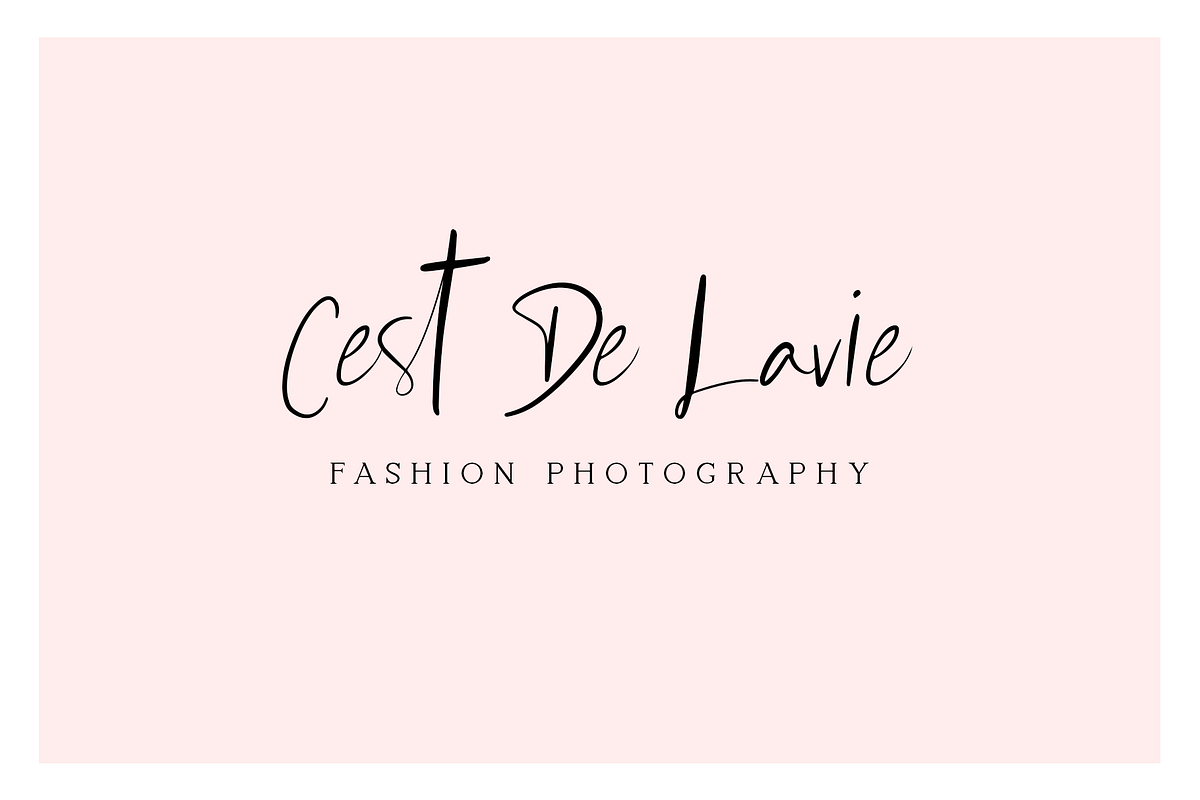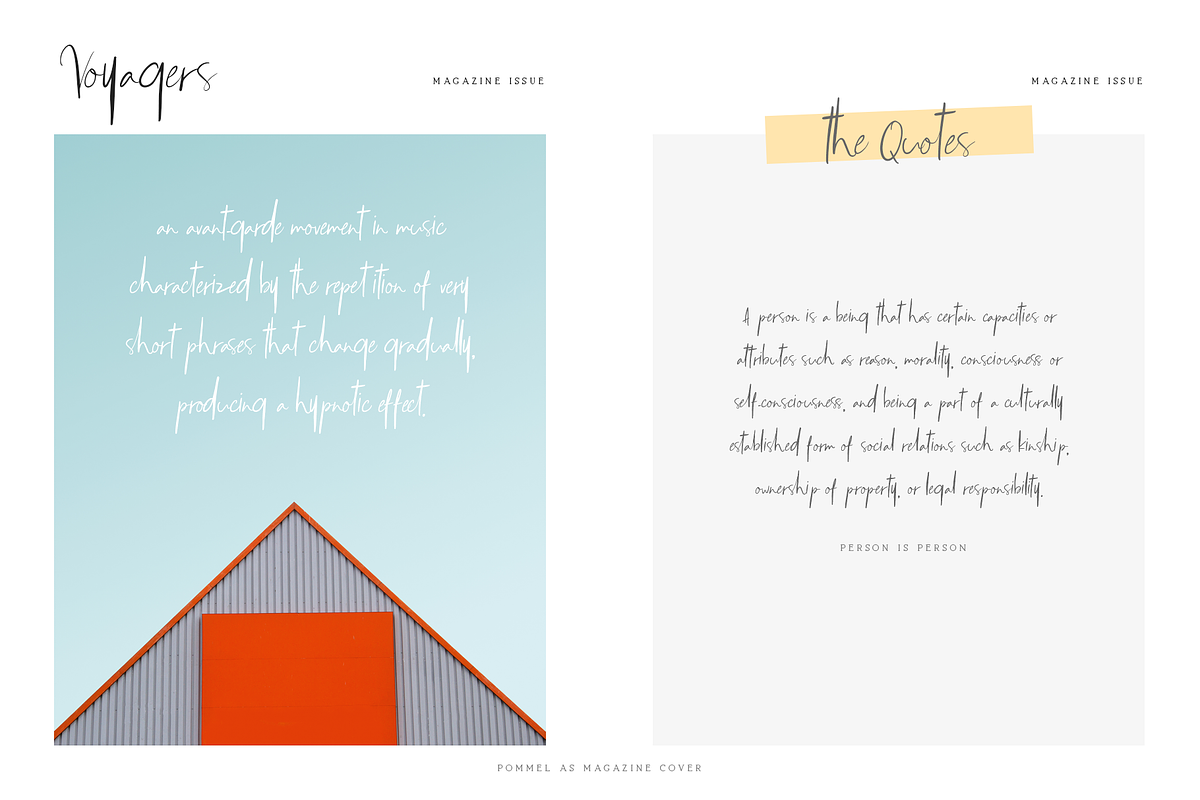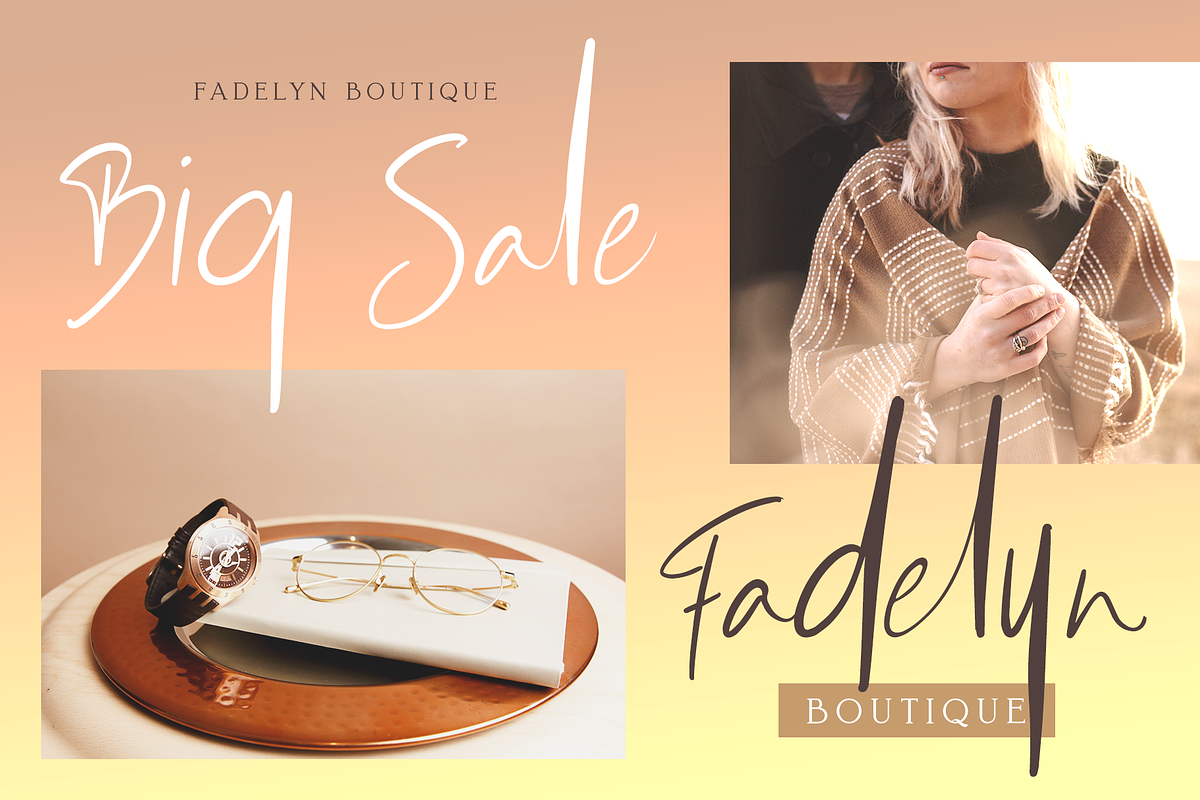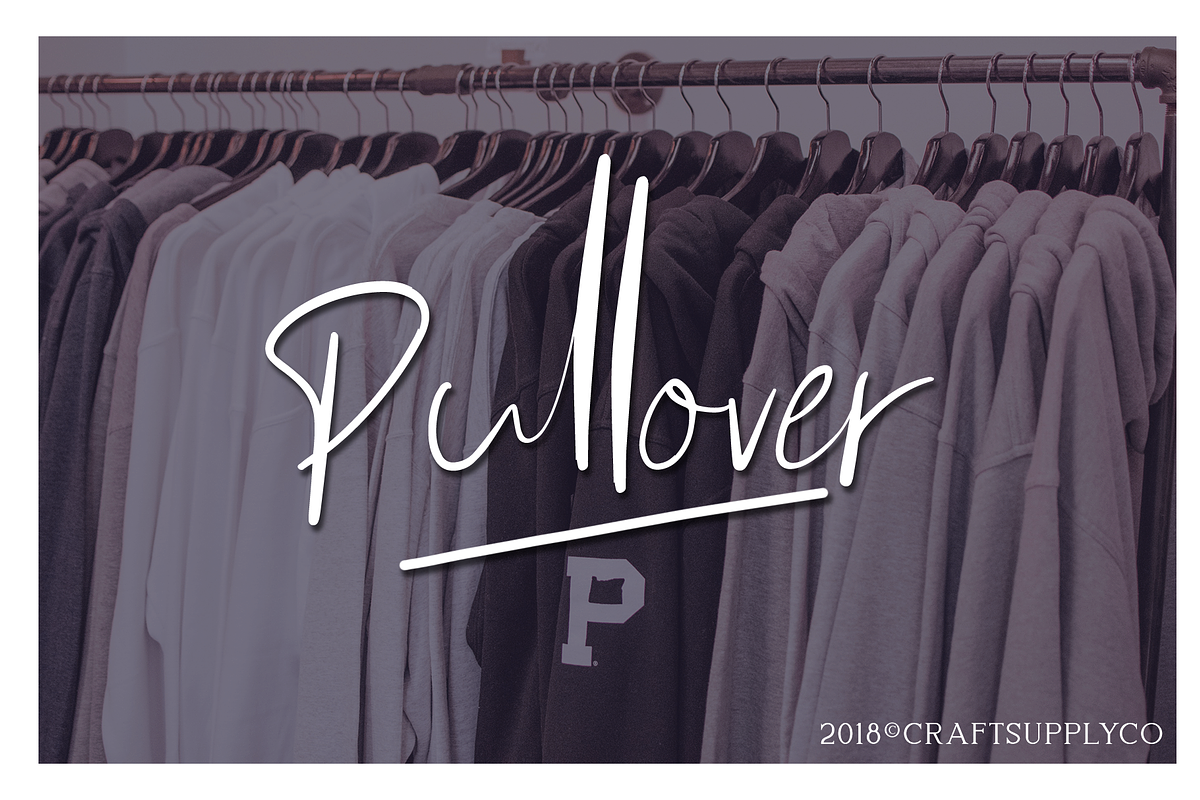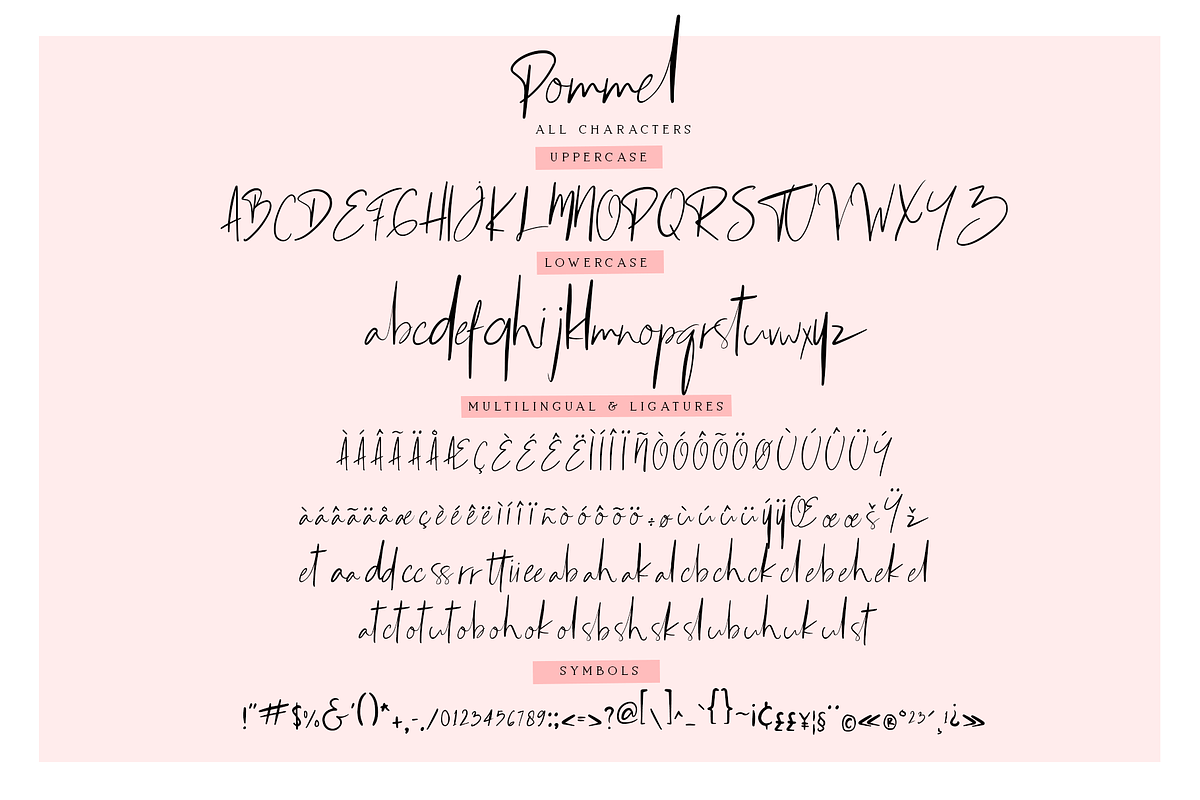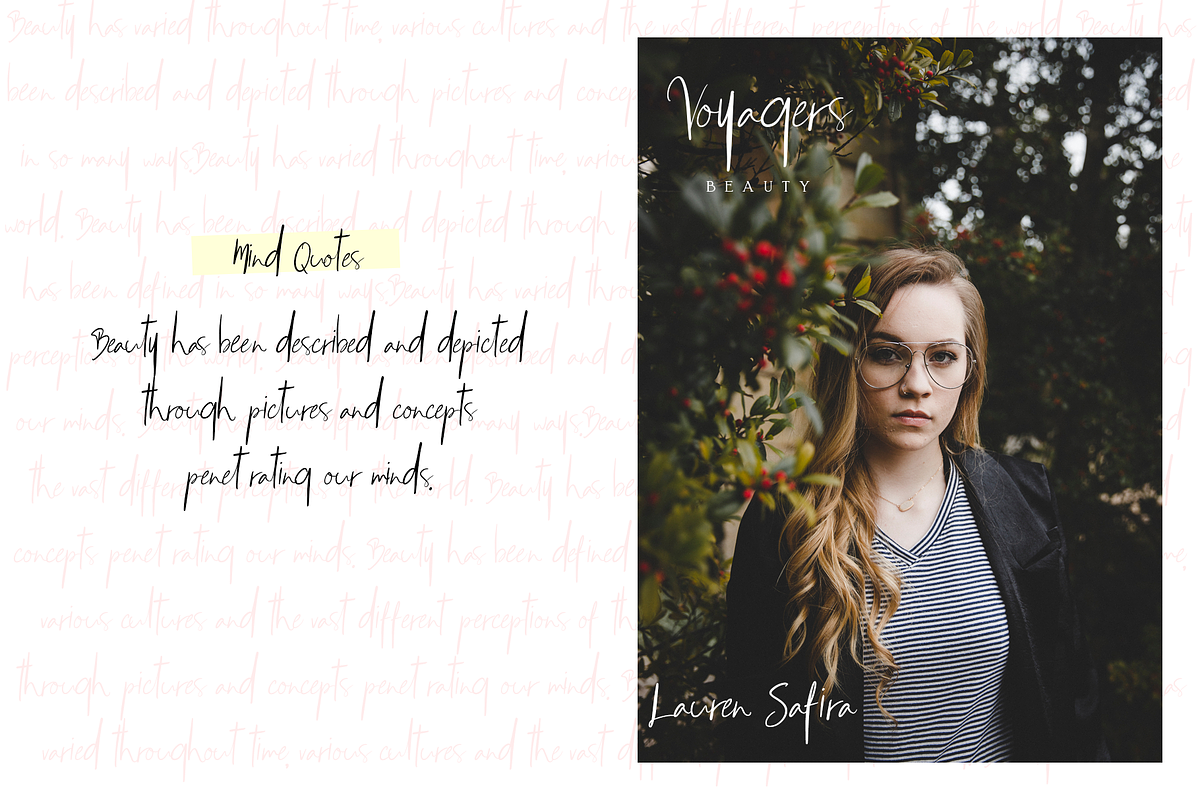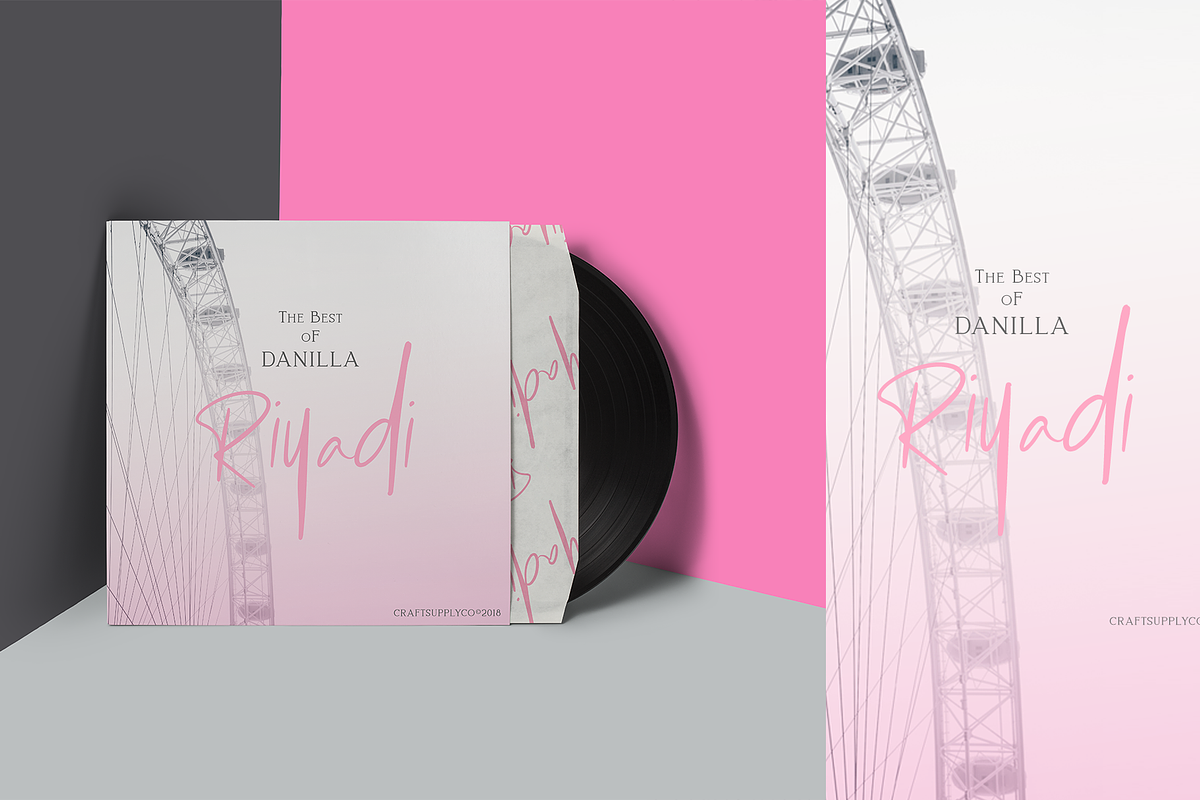
Pommel - Handstylish Font
Introducing New Font : Pommel - Handstylish Font
Pommel - Handstylish Font is an handwritten script font based on the expression of real handwriting. Pommel - Handstylish Font will work perfectly for fashion, e-commerce brands, trend blogs, wedding boutiques or any business that wants to appear upscale and chic.
Pommel - Handstylish Font also Suitable for Logo, greeting cards, quotes, posters, branding, name card, stationary, design title, blog header, art quote, typography, art, modern envelope lettering or book design, happening style like handdrawn design or watercolor design theme, craft design, any DIY project, book title, or any purpose to make our art/design project look pretty and trendy.
1. Upper Case & Lowercase
2. Stylistic Alternates
3. Standart Ligatures
4. Numerals & Punctuations (OpenType Standard)
5. Accents (Multilingual characters)
Pommel - Handstylish Font by Craft Supply Co. fits naturally into Branding, posters, packaging, typography.